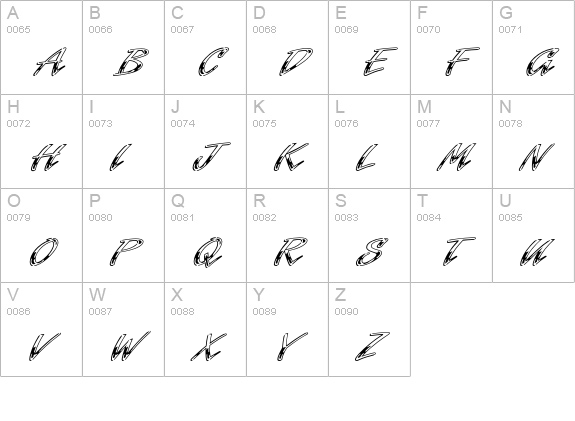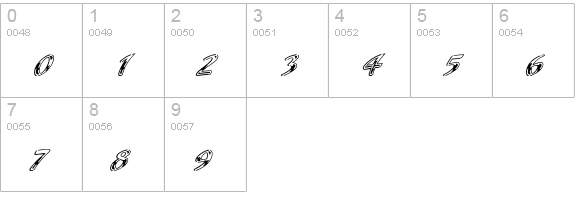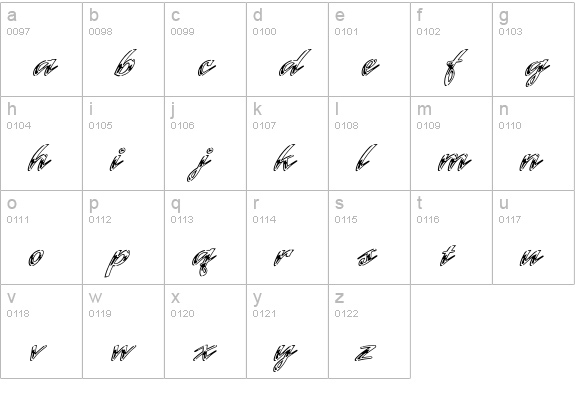
LaserICG-ChromeAlt Font Details
LaserICG-ChromeAlt is a modern and sleek font that exudes a sense of sophistication and elegance. Its clean lines and sharp angles create a striking visual impact, making it perfect for a wide range of design projects. This font's unique design features a chrome-like finish, giving it a futuristic and high-tech feel. The sharp edges and precise details add a sense of precision and professionalism, making it ideal for logos, branding, and headline designs. What makes LaserICG-ChromeAlt even more appealing is that it is available for free! You can easily download this font from FontsMarket.com, where it is freely accessible for personal and commercial use. This means that you can add a touch of modernity and style to your projects without having to spend a dime. Whether you're a professional designer, a small business owner, or a creative enthusiast, LaserICG-ChromeAlt is a font that will undoubtedly elevate your designs. Its versatility and eye-catching appeal make it a go-to choice for various applications, from advertisements and packaging to website headings and social media graphics. So why wait? Download LaserICG-ChromeAlt today from FontsMarket.com and unleash your creativity with this stunning and freely available font.